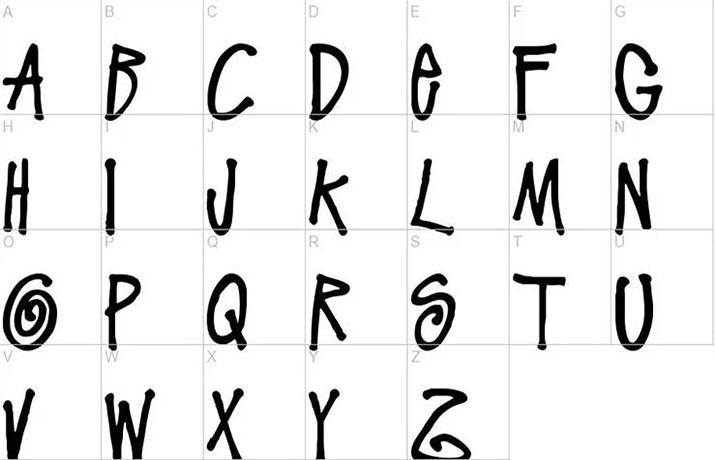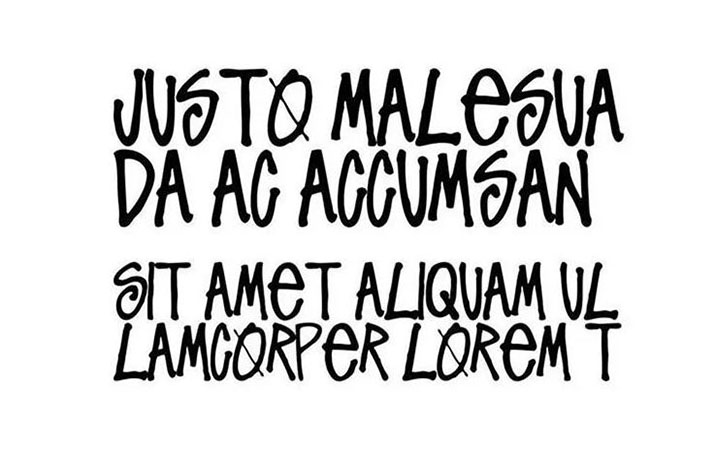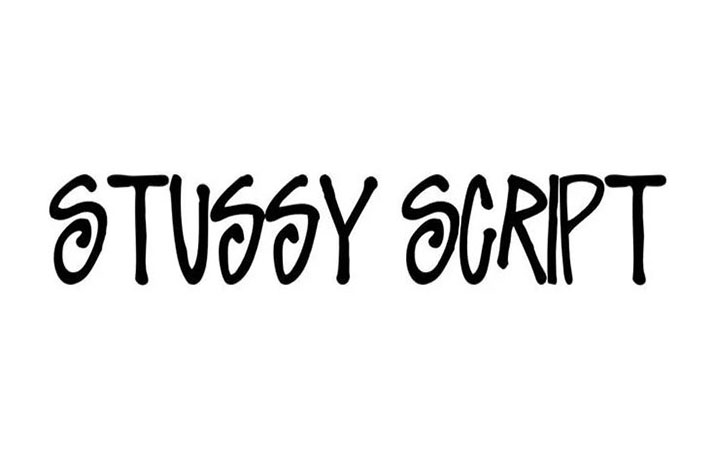
Stussy Script Font is a casual handwritten typeface that has a natural and flowing look. A UK-based designer Niall Kitching took charge of designing and releasing it.
Basically, this font is inspired by the iconic streetwear brand Stussy. So, try it out for branding, logos, posters, streetwear, sportswear, typography, applications, poster designs, books, invitations, products, brochure banners, headers, and more.
All textures are created with bold strokes in which the designer has used elegant layouts. All texture has tall height along with medium width.
“Stussy Script typeface is available in a single weight along with True Type features. This font includes 56 glyphs including uppercase letters. Moreover, it also supports 34 multilingual languages.”
- The causal style of lettering makes it ideal for logos, product packaging, product design, comic covers, game titles, game development, movie posters, unique signs, product design, special event cards, game graphics, product design, special event cards. . Printing on cartoons, titles, headers, titles, flyers, signs, banners, headers, kids elements, headers, banners, flyers, headers, cards, and more.
- This font can good paired with fonts like Andy Bold Font by JunCreative and Unicorn Flakes Font by Gregory “Sesohq“ Ortiz.